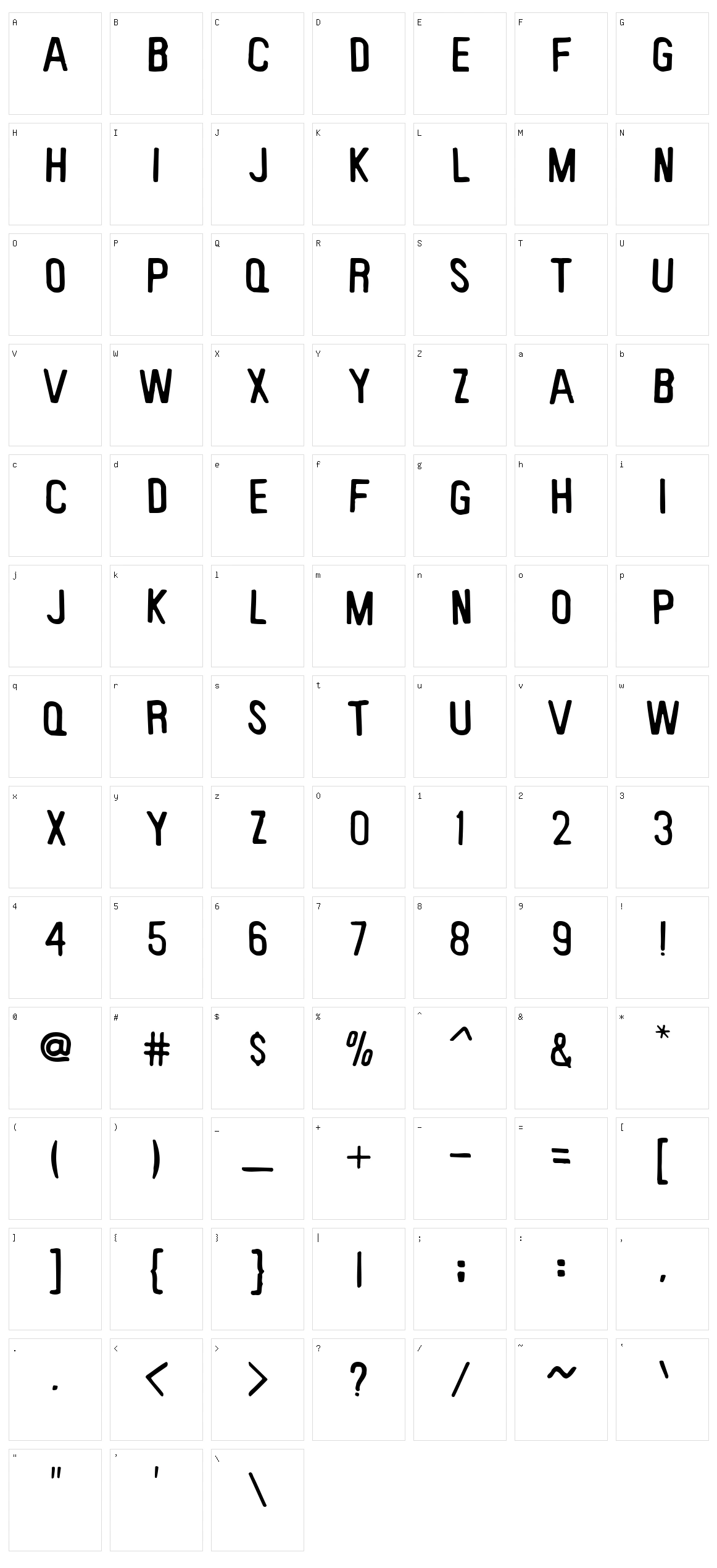
The free font Keyboard Plaque is carefully designed by ChannelZero, showcasing a thoughtful balance of creativity and usability and falls under the Eroded font style. When you download the ZIP file, it contains only 29.37 KB of font files, making it lightweight and quick to download. Please review the license details below to understand permitted usage and distribution rights. If license information is not available, we recommend using this font for personal projects only or contacting the author directly for commercial usage permissions.